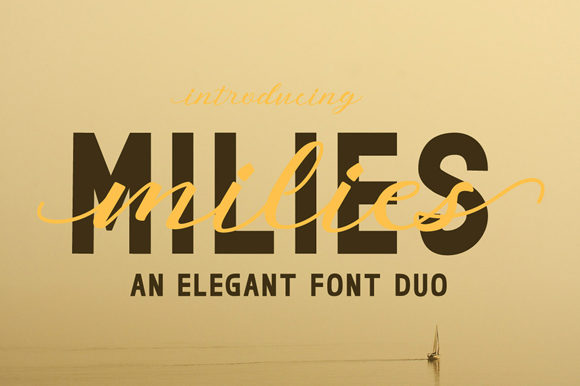
Introducing the ravishing Milies Duo Font - a symphony of creativity that will harmonize your designs with grace and elegance! Step into a world of visual enchantment where your words will dance across the screen, leaving a trail of elegance and sophistication.
Crafted by the visionary minds at Flame Studio, Milies Duo Font is a captivating font duo that artfully merges the bold strokes of a block sans serif with the sweeping curves of a stylish calligraphy script. This harmonious union gives birth to a font family that demands attention and leaves a lasting impression.
With Milies Duo Font at your fingertips, you'll have the creative power to forge captivating greeting cards, heartfelt quotes, and alluring branding that speaks volumes. Its versatility knows no bounds, extending to stationery designs, social media posts, packaging, magazine layouts, prints, and countless other creative endeavors.
Let Milies Duo Font ignite your imagination and transport your designs to new heights. Its captivating combination of strength and fluidity will elevate your work, leaving your audience captivated and eager for more.
Immerse yourself in the beauty of Milies Duo Font, where every character exudes elegance and every word becomes a work of art. Unleash your creativity and watch as your designs take flight with this extraordinary font duo.